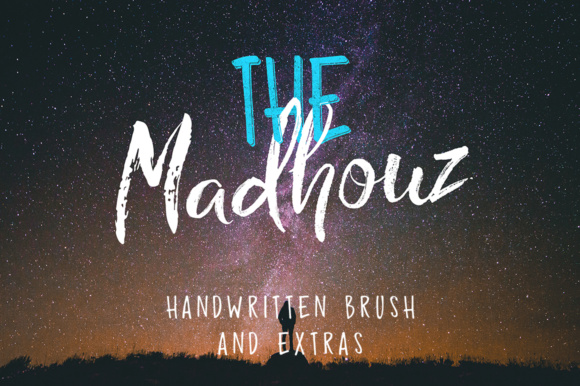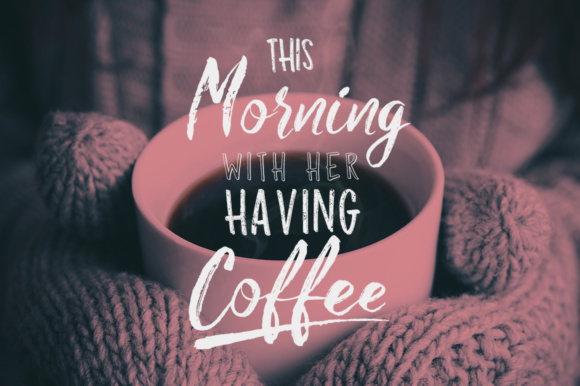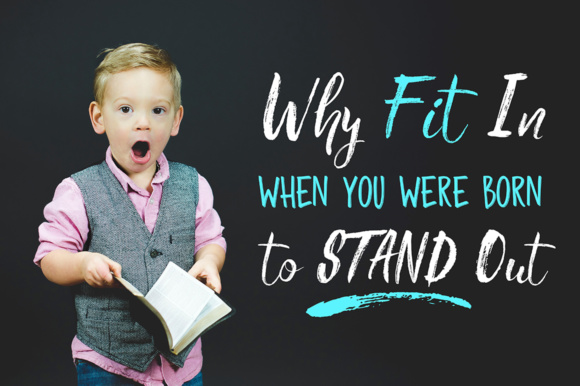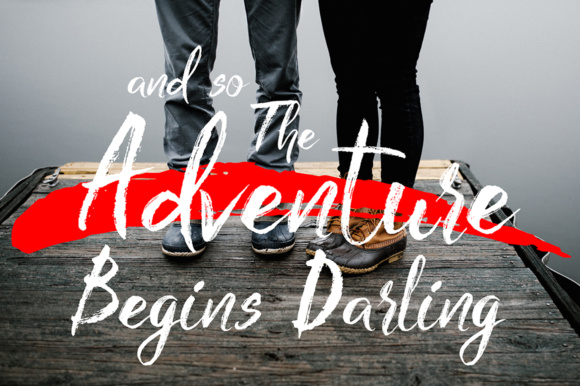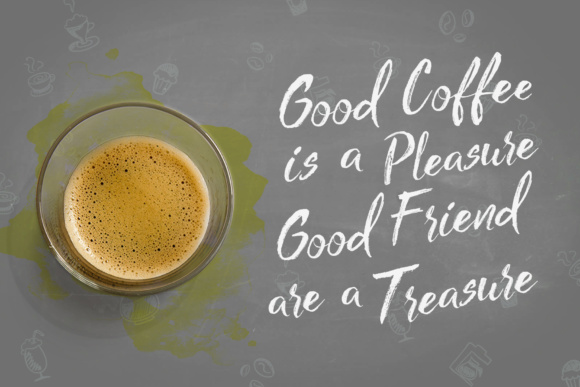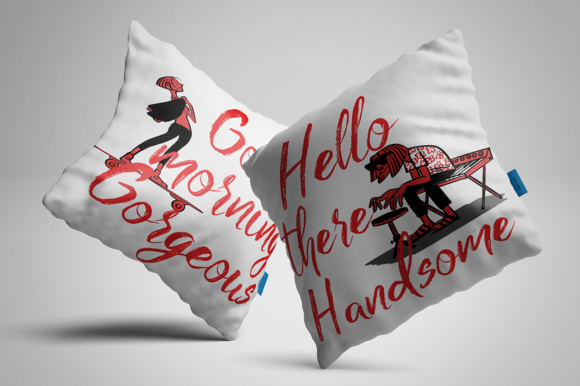
Madhouz Font
About Madhouz Font
Get the Madhouz font family, perfect for giving your designs a charming and gritty appeal! This font is really stylish, and all the different font styles can give your work a wonderful, hip impression.